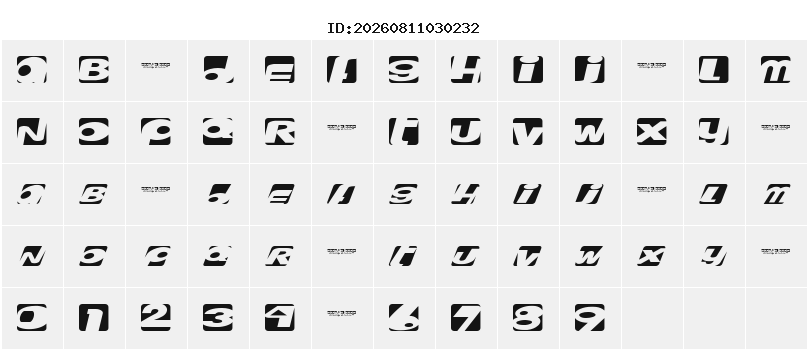
• Designer: Chris Brown
• Description: ROYAL BOX is a design font with a a loose but formatted style Suitable for all applications where a unique look is desired.
Royal box.ttf is a modern, elegant sans-serif font designed for ultimate readability and visual harmony. Perfect for branding, headlines, web design, and print materials.